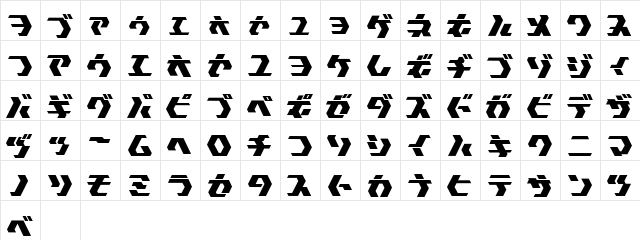
TokyoSquare Regular
Design Context for TokyoSquare Typeface
TokyoSquare is a composed and adaptable typeface that performs quietly and consistently across a wide range of design contexts.